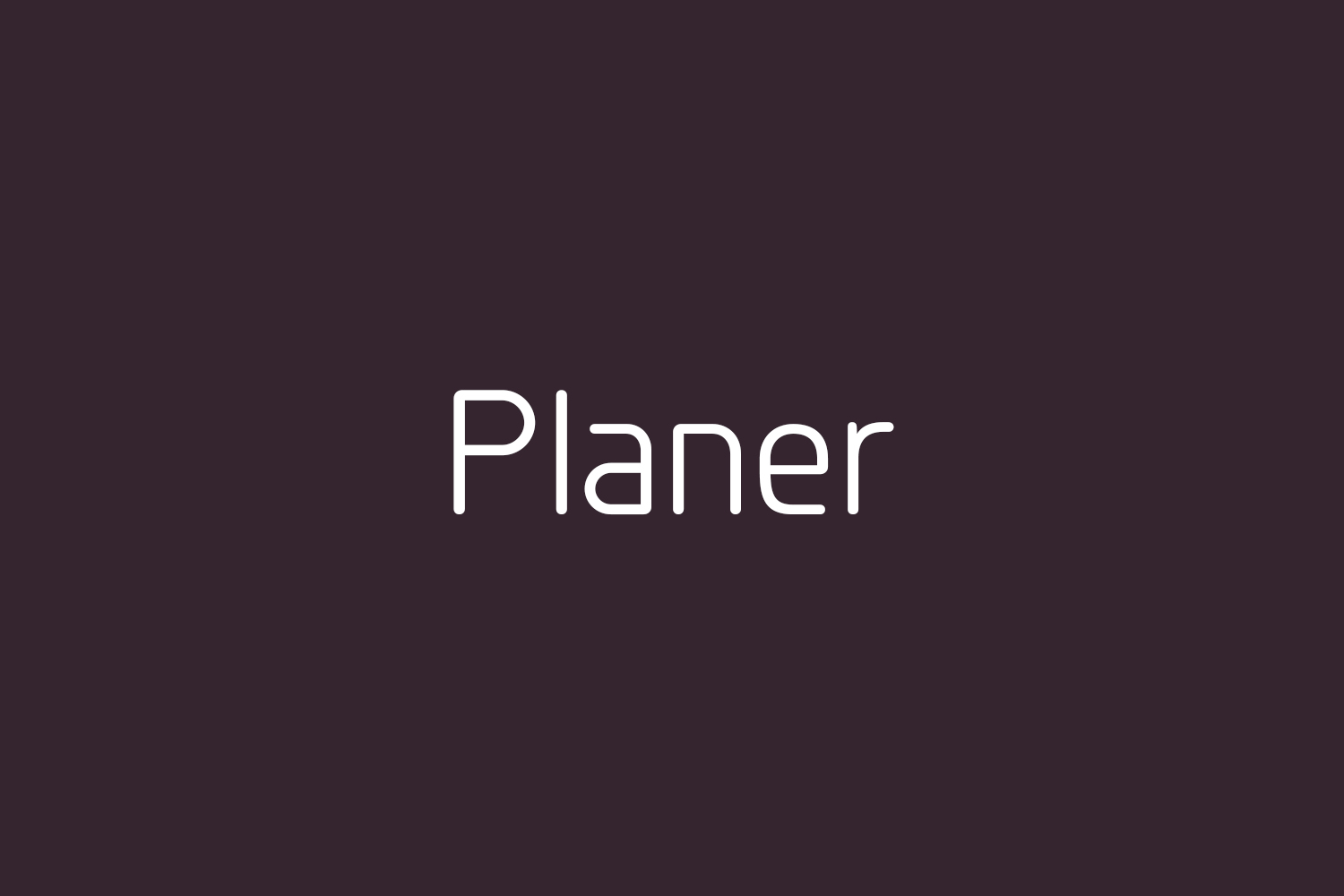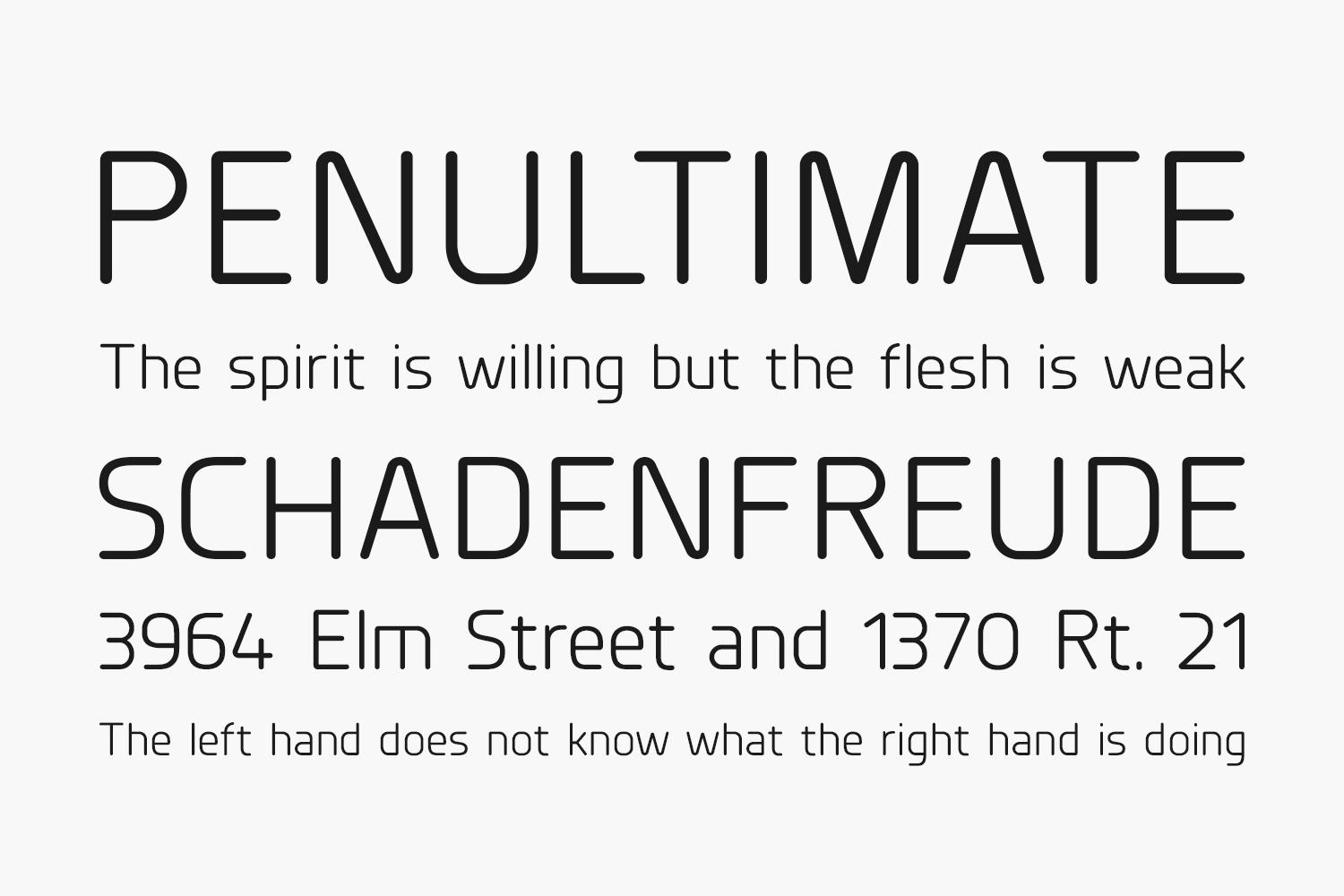
Planer Free Font is a modern rounded typeface combining humanist elements with a strong geometric grid. The result is a font that can produce striking visuals at large scale and clean line legibility at text size.
Designed by The Northern Block